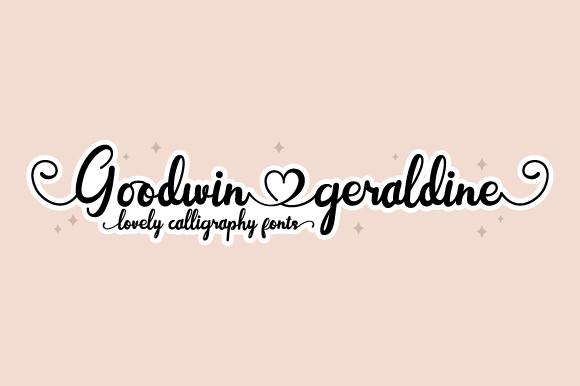
Goodwin Geraldine Font Description
Goodwin Geraldine is an elegant and flowing handwritten font. It is PUA encoded which means you can access all of the glyphs and swashes with ease! It maintains its classy calligraphic influences while feeling contemporary and fresh. Fall in love with this font and bring your projects to the highest levels!